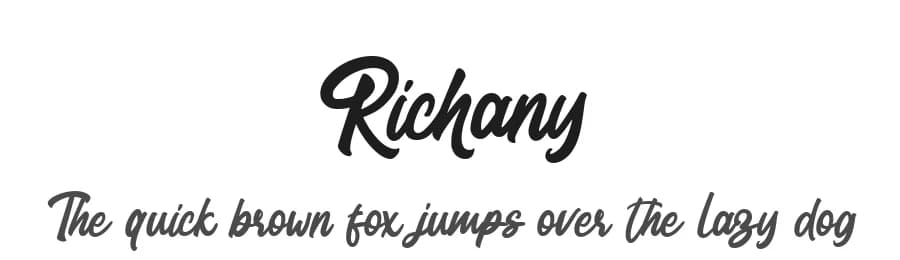
About Richany Font
Richany Specifications
| Font Family | Richany |
| Full Name | Richany Regular |
| Glyph Count | 78 glyphs |
| PostScript Name | Richany-Regular |
| Designer | Mikro Type Std |
Richany supports 91 languages.
Richany Font is a script font that shines as a display or heading face. Pair it with a clean sans-serif or serif font for body text β the contrast creates a clear hierarchy while the two styles stay balanced and easy to read.
Richany Font